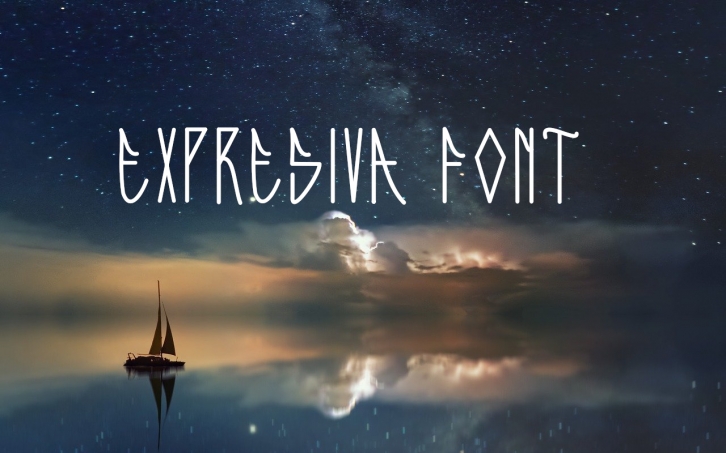
Expresiva is a slim and cool Graffiti display font. It is ideal for web designs, business cards, branding projects, or pretty much anything else that requires a unique modern touch.